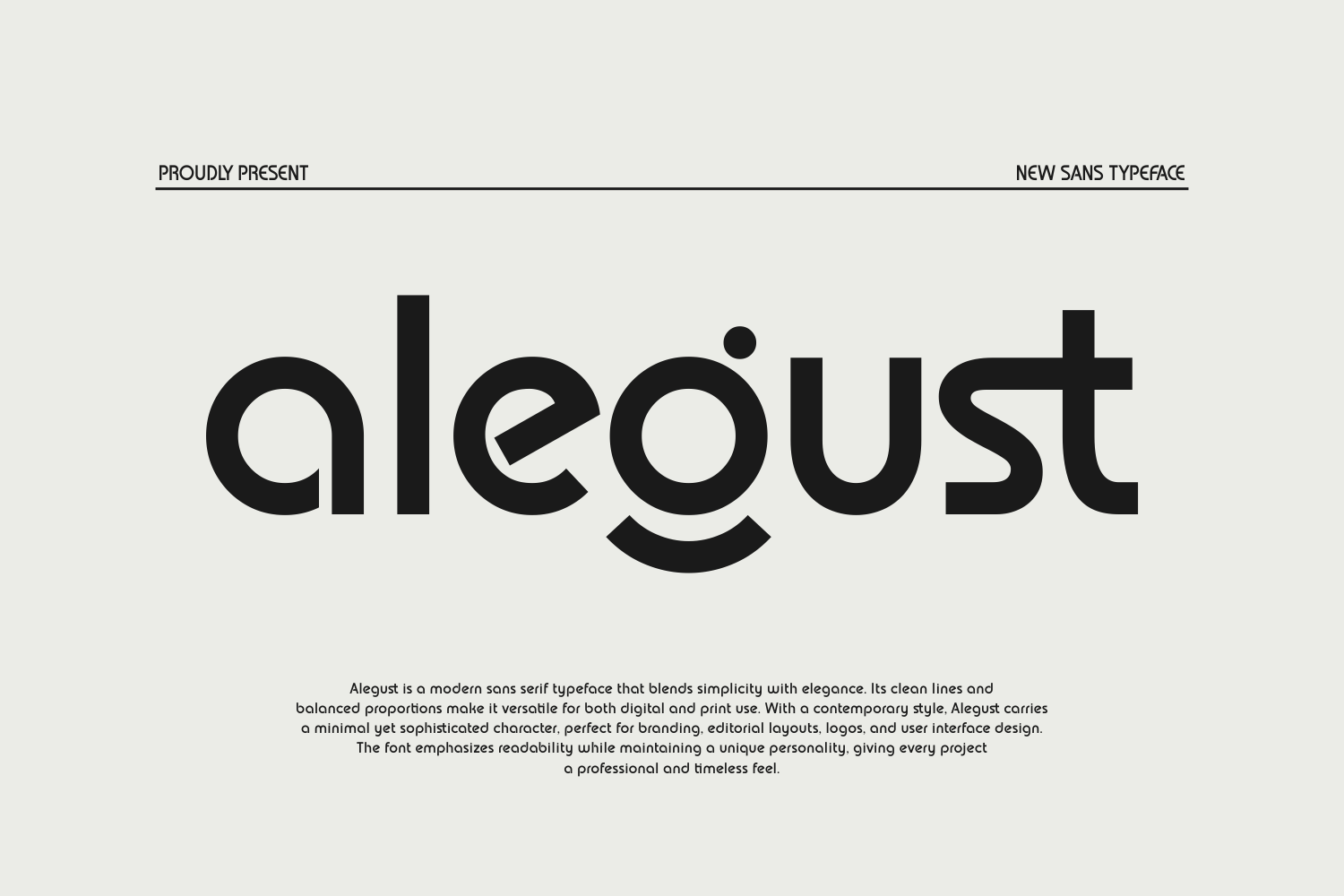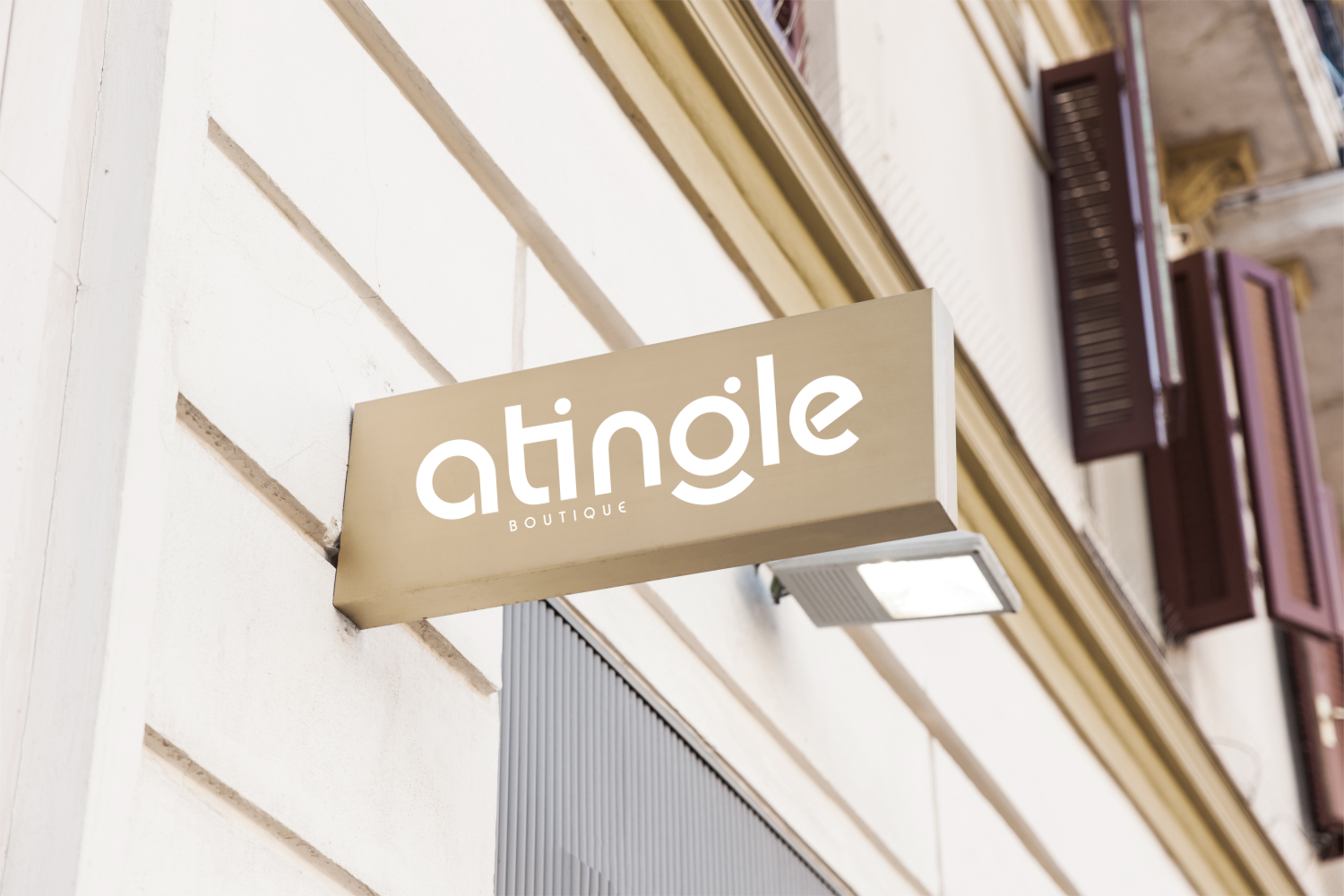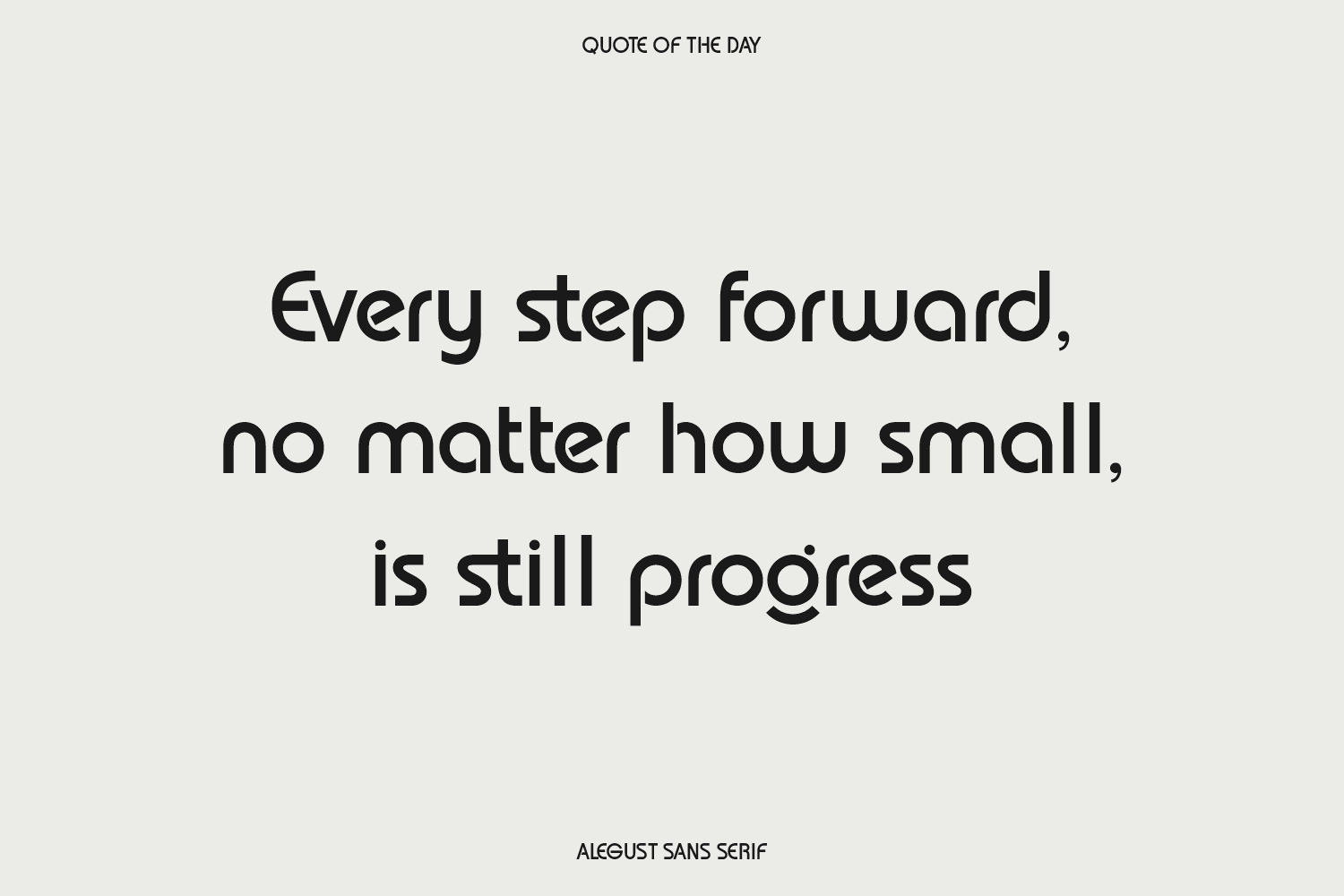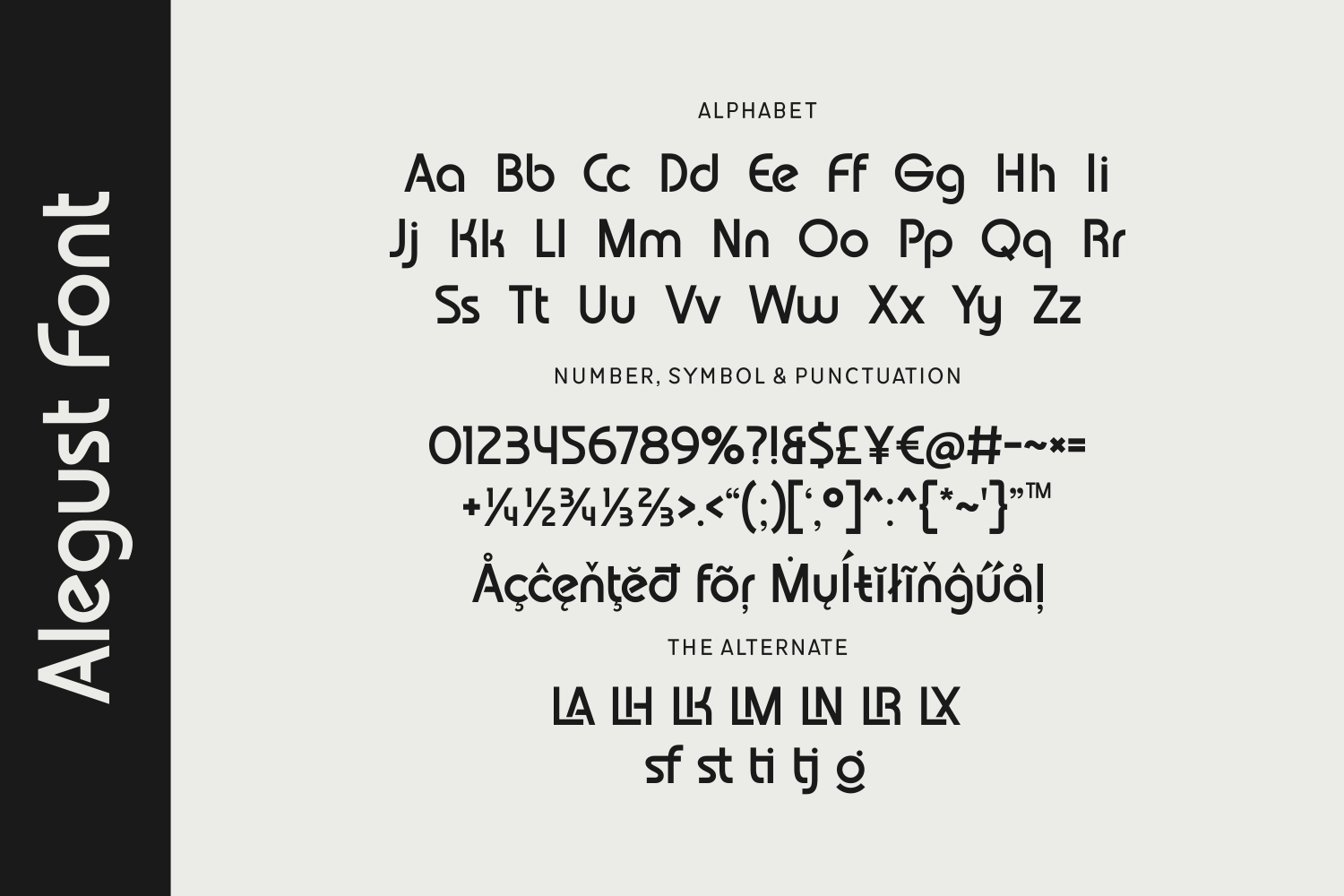
Alegust is a refined sans serif font with clean lines and contemporary proportions. Designed for versatility, it’s a perfect balance of simplicity and character—ideal for digital interfaces, corporate branding, minimalist logos, and editorial layouts.